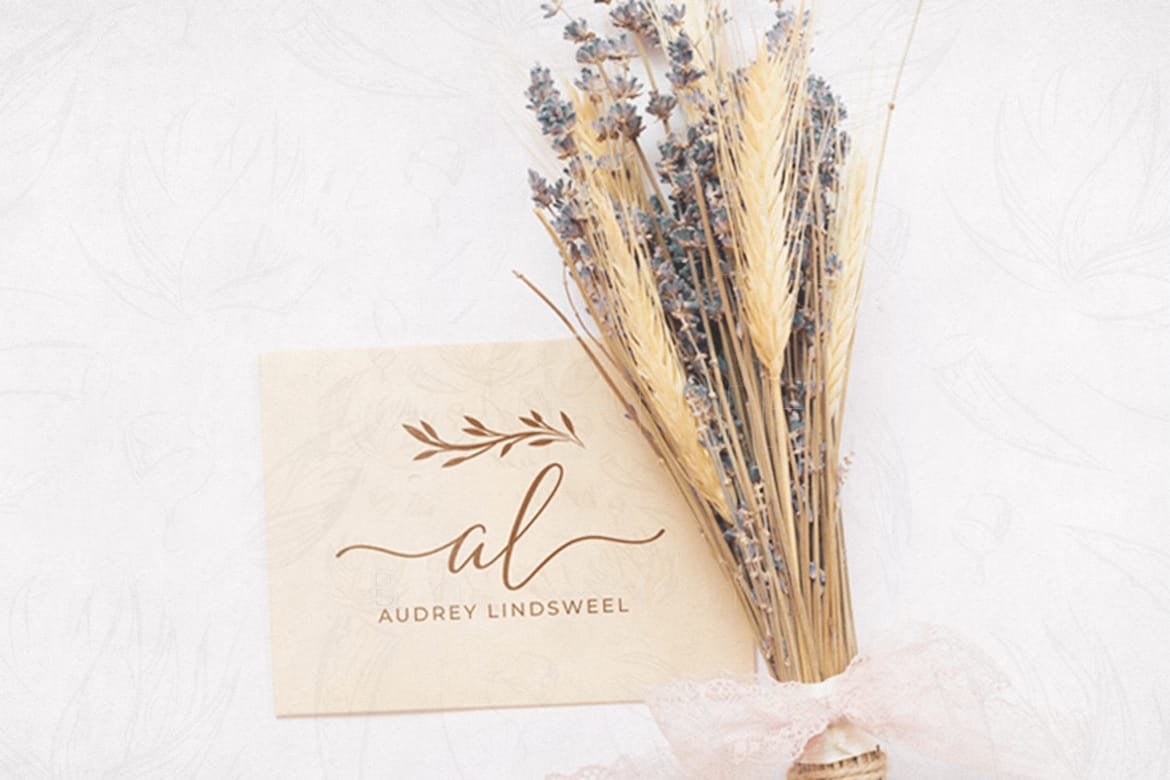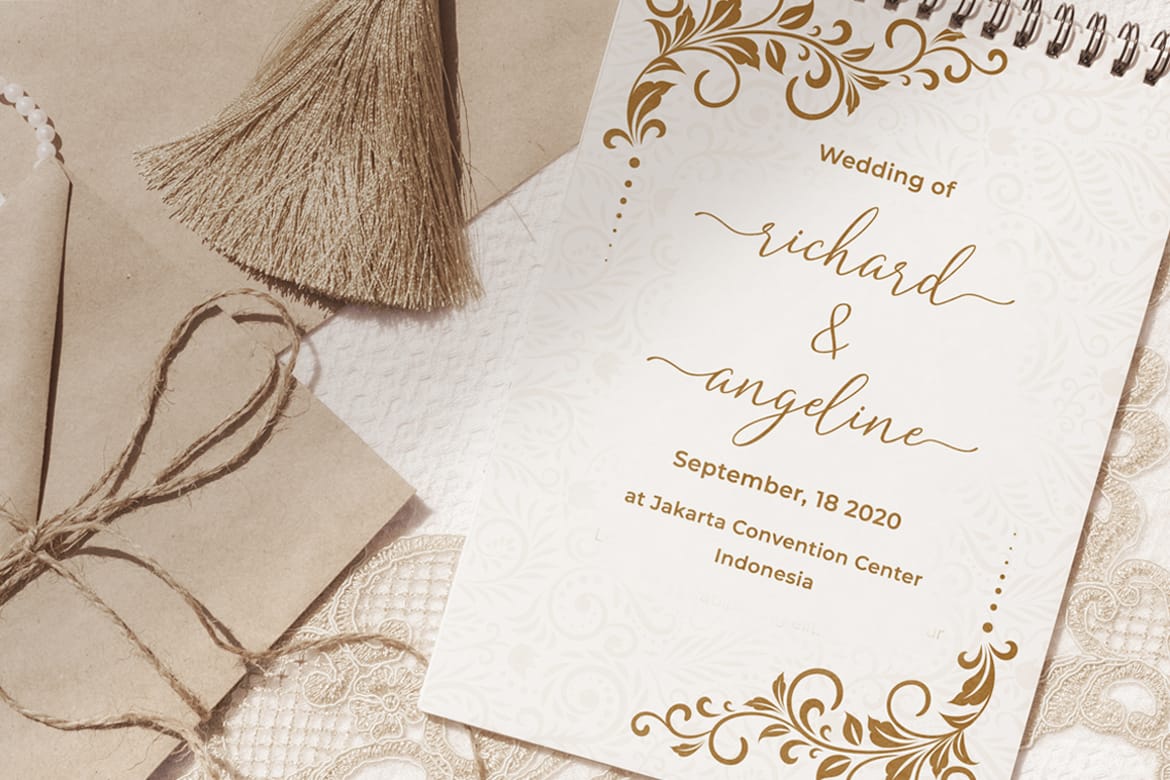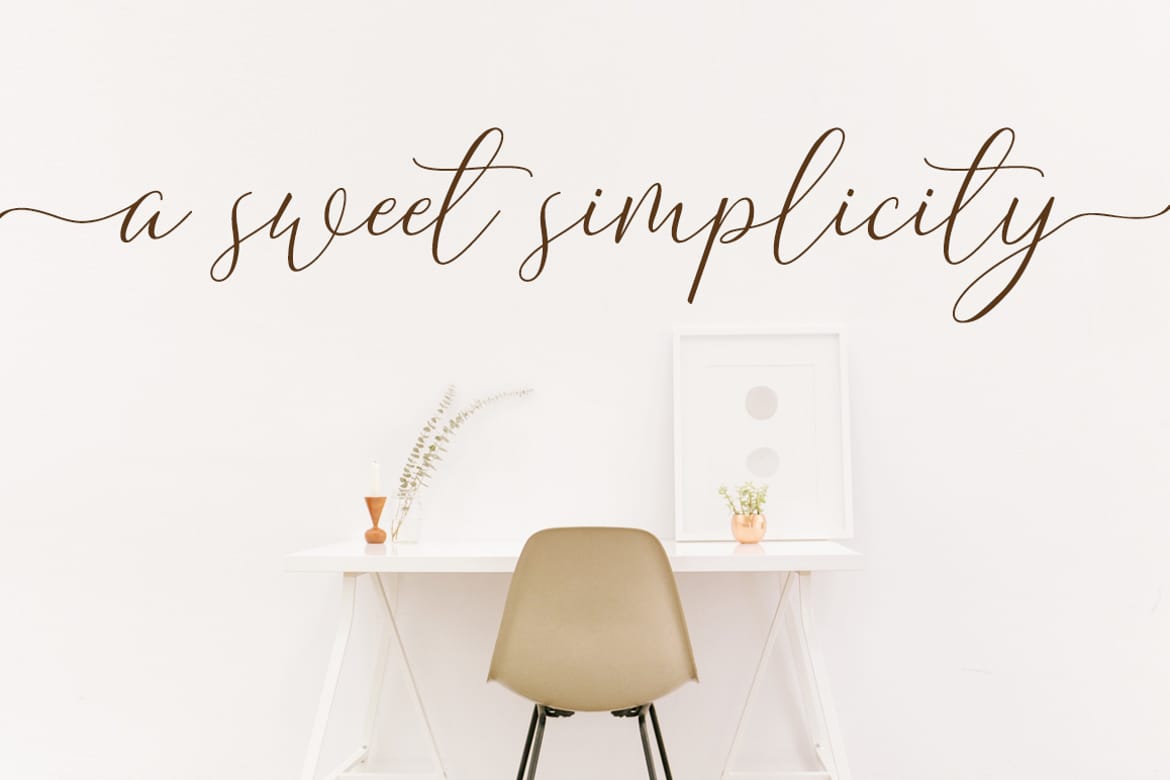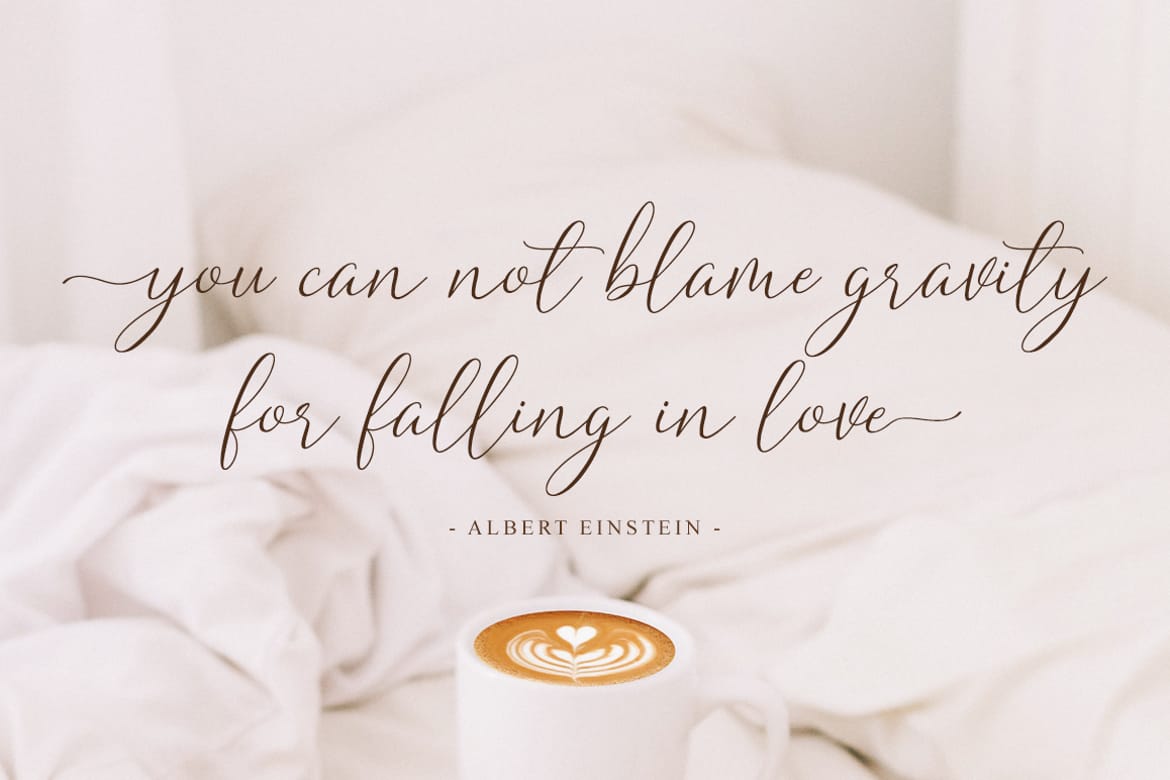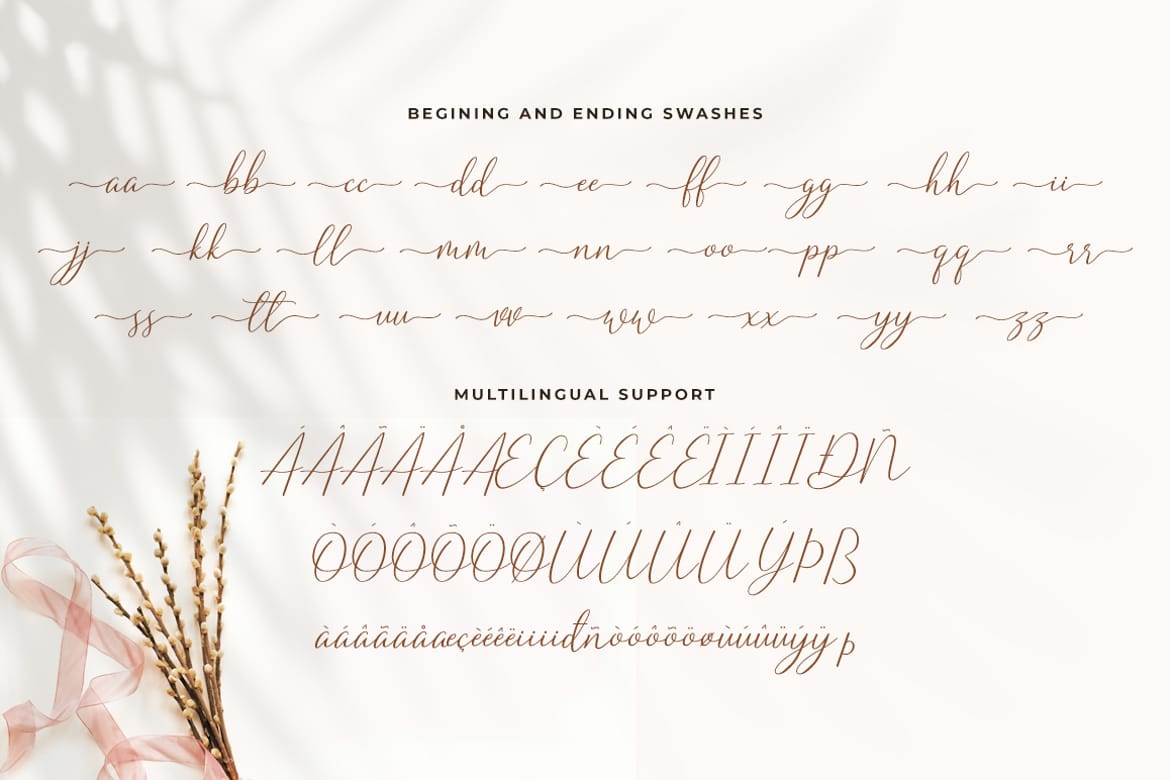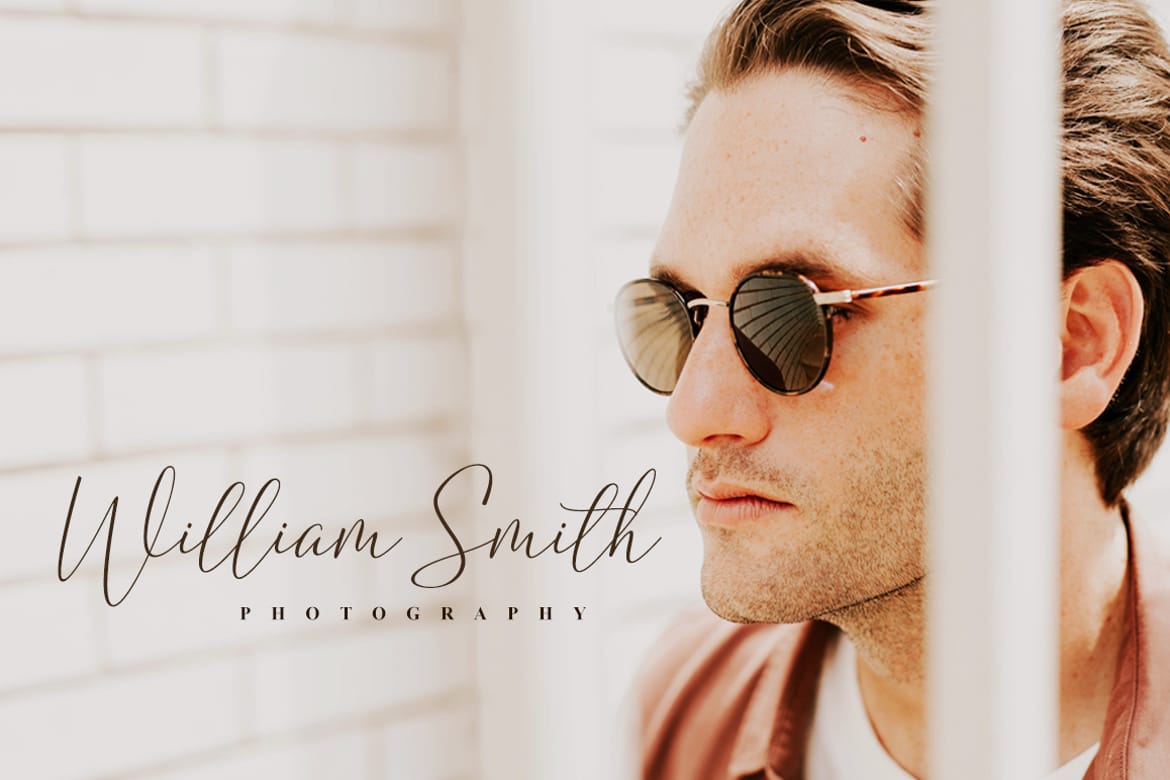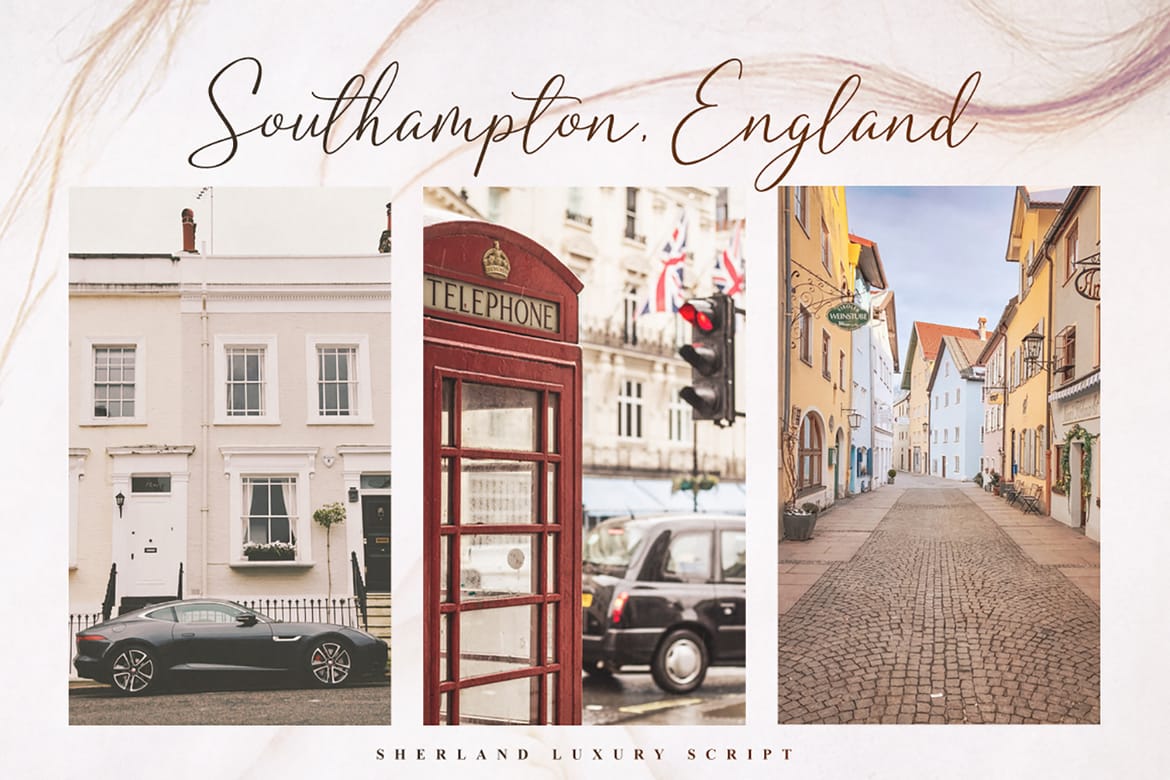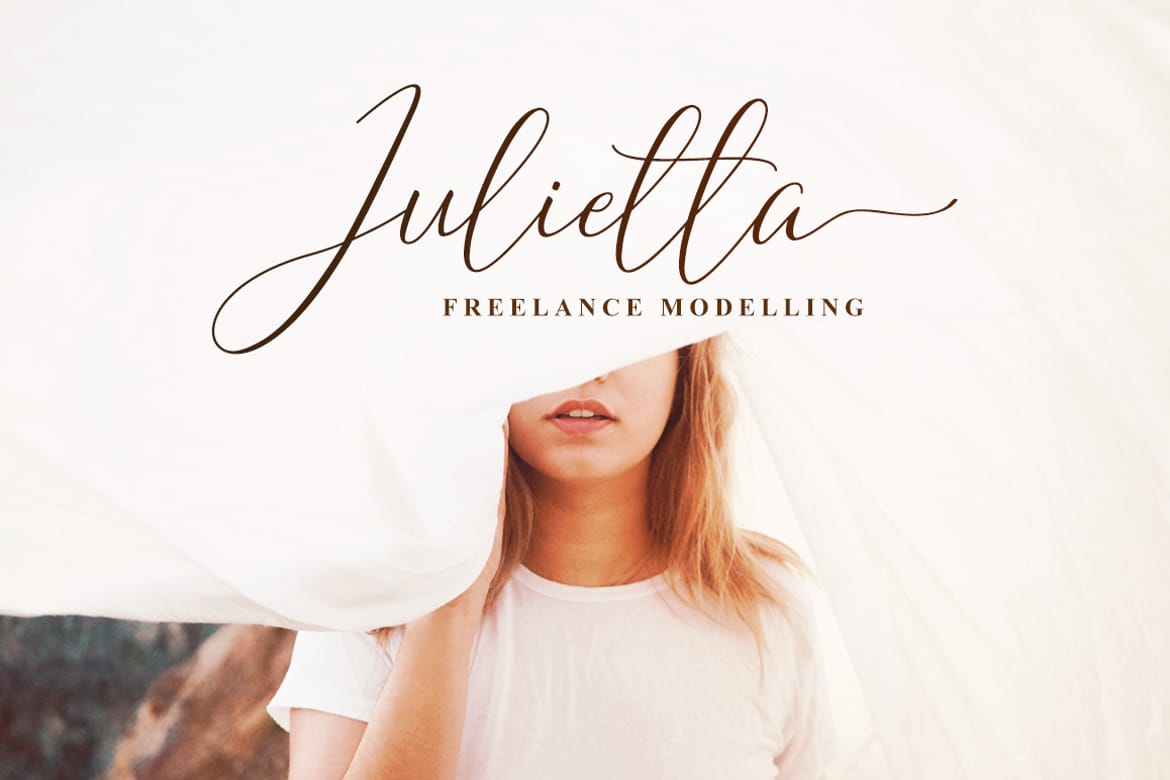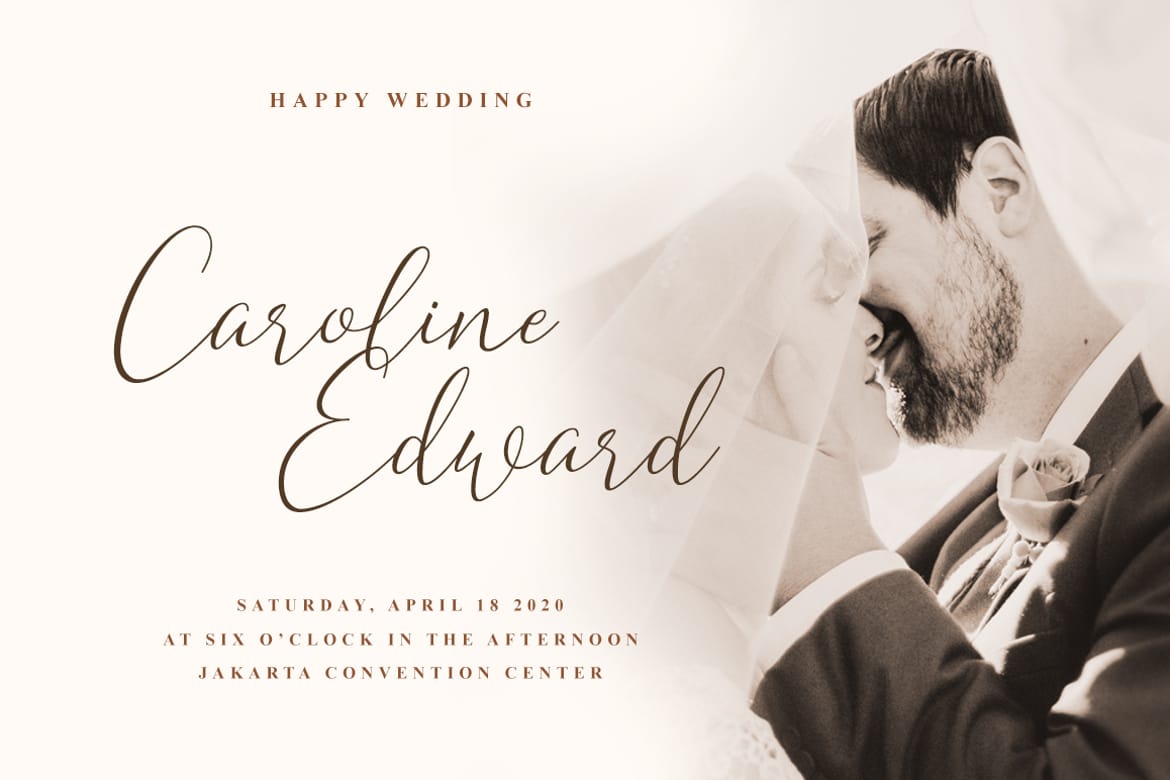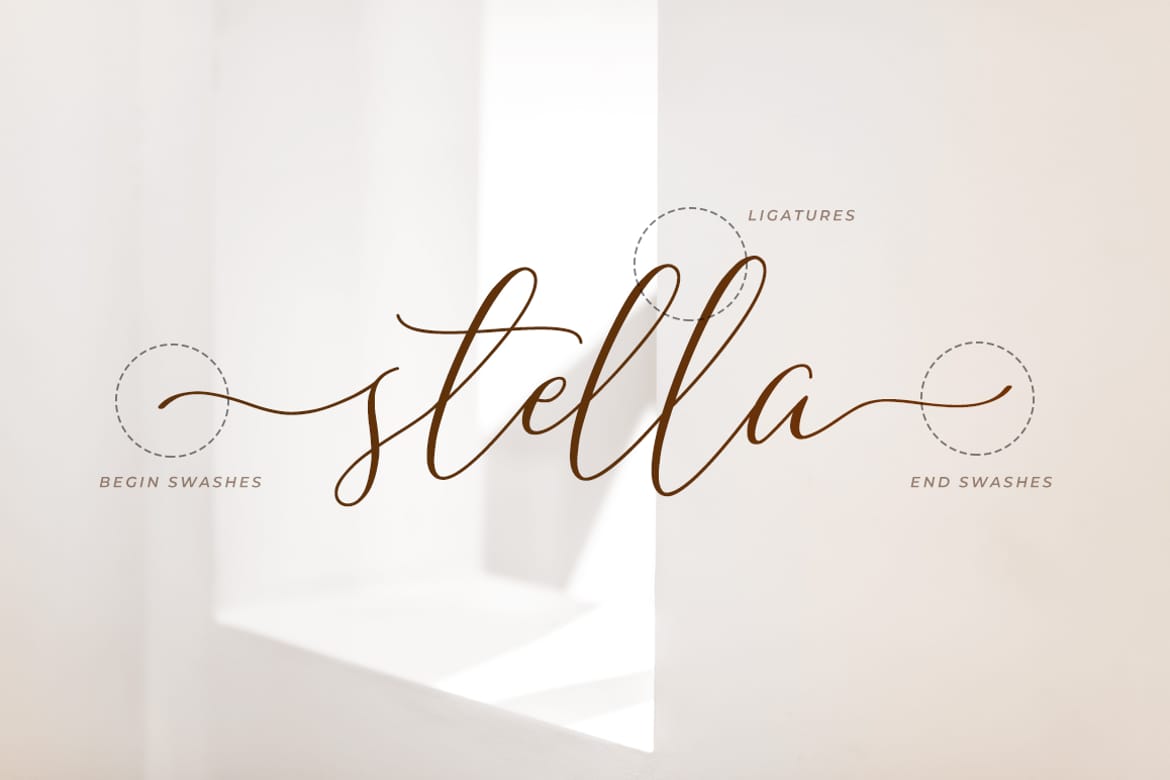
Sharland is a luxury script font designed with elegant handwritten strokes and graceful curves that create a sophisticated and timeless appearance. This font delivers a modern calligraphy style that feels natural, classy, and highly versatile for premium branding projects. With its flowing letterforms and stylish swashes, Sharland is perfect for logos, wedding invitations, feminine branding, fashion editorials, beauty products, social media posts, packaging, and signature-style typography.
- Ligatures and Alternates
- Multilingual Support